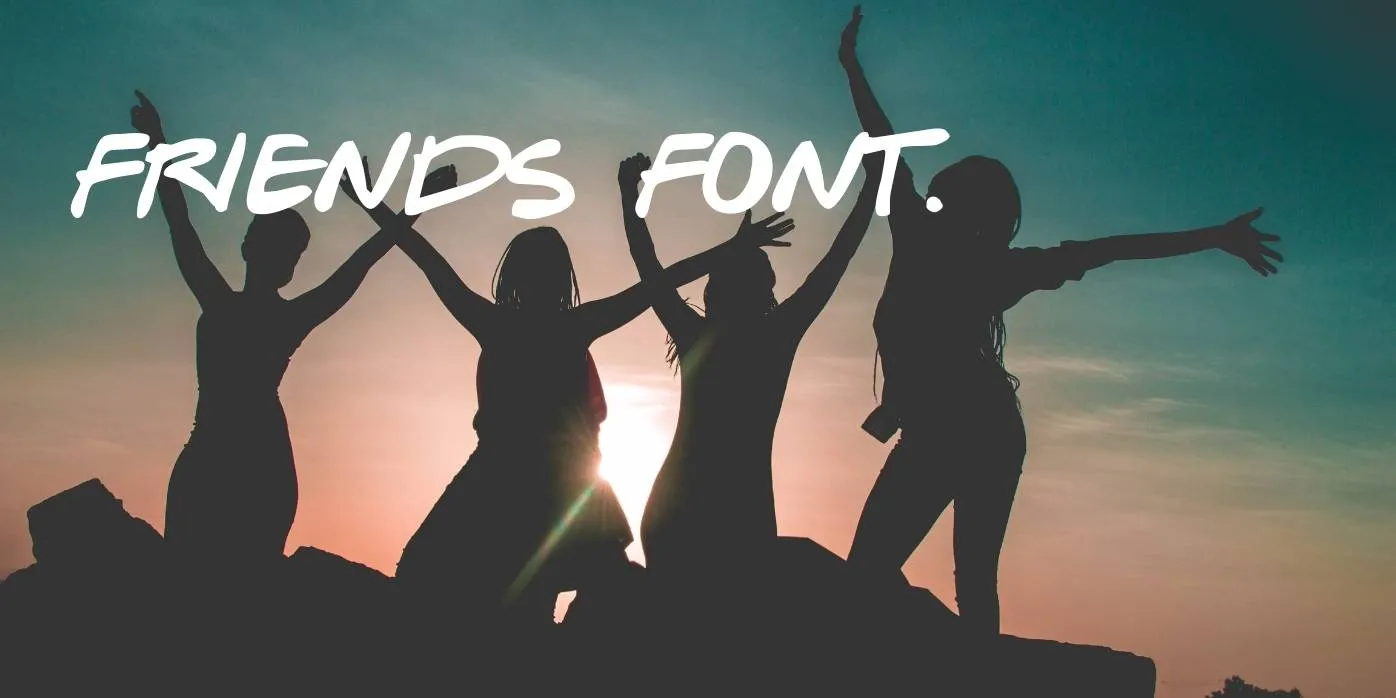
Friends Font
Today we discussed a tremendous and fantastic font family that was known by the name Friends Font. This amazing font belongs to the Script typeface. This fascinating and massive fame font family was designed by very famous and brilliant designers  Gabriel Weiss. In the year 2005, this font family was completely developed but it was released later in 2008.
This awesome and attractive font is alternative to the Multicolore Font. Both of the fonts have the same features. This stylish font is available in different unique characters. Some of its famous and popular characters are symbols, icons, numerals, and many more.
This font comes in various unique Glyphs and styles. Its unique Styles increase its power and performance. This font supports different types of languages which is the reason this font is used everywhere all over the world. This font is best for other software like Canva.
Its copy and paste function is best for various tasks. If you want to attract your clients then you will use this font for all of your interesting plans and functions. It has a huge variety of Glyphs more than 141 and styles more than 136. This font has keen and clean textures.